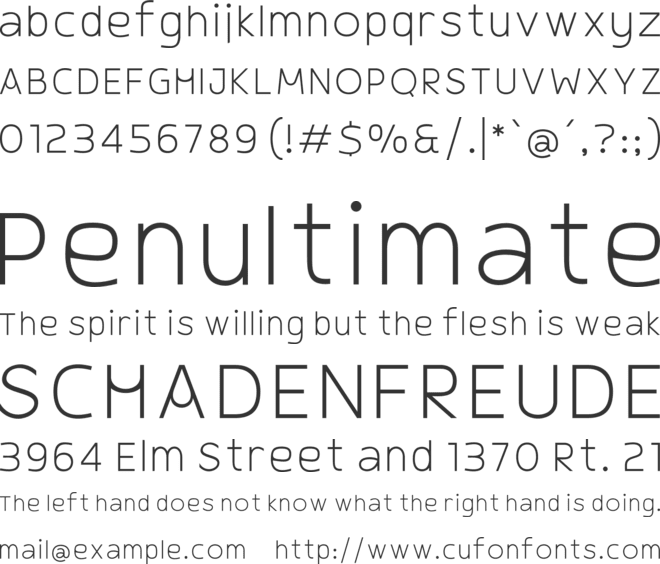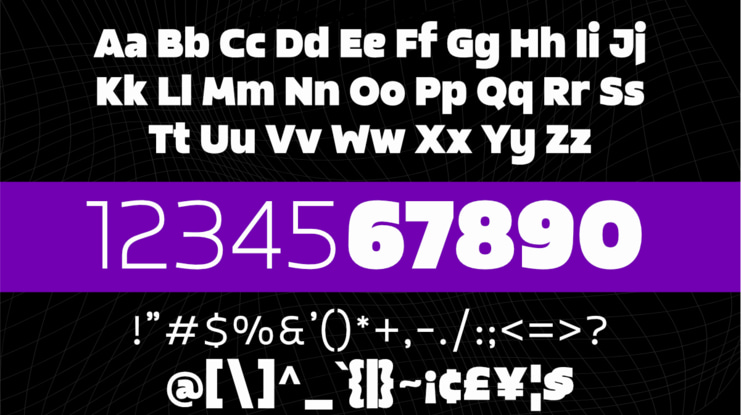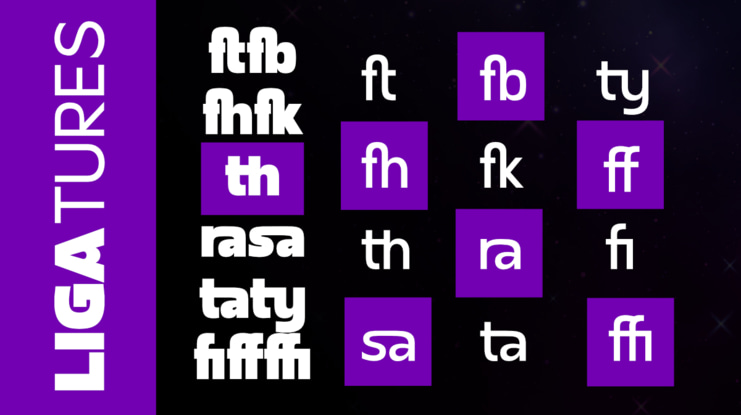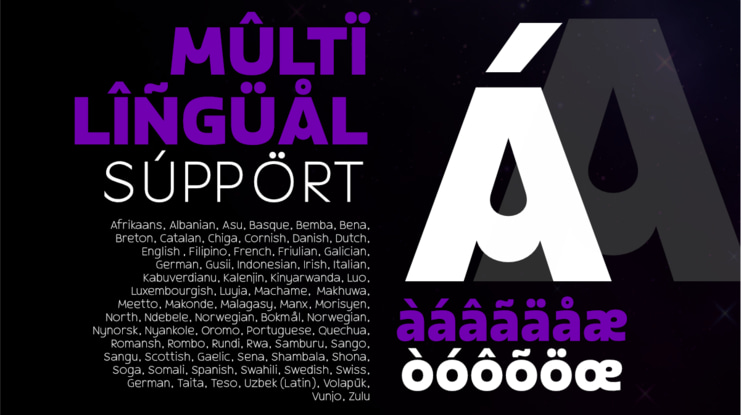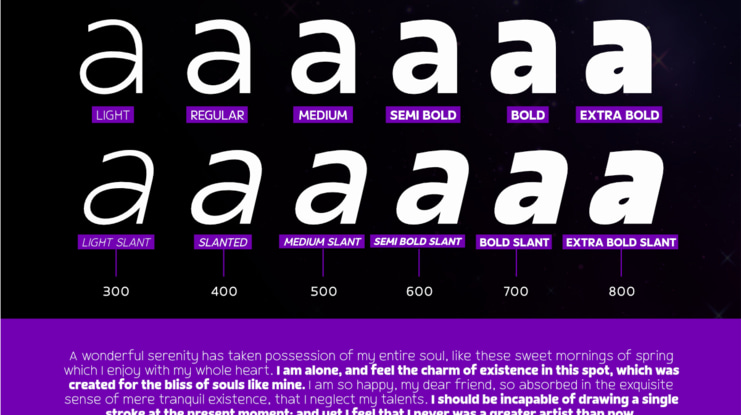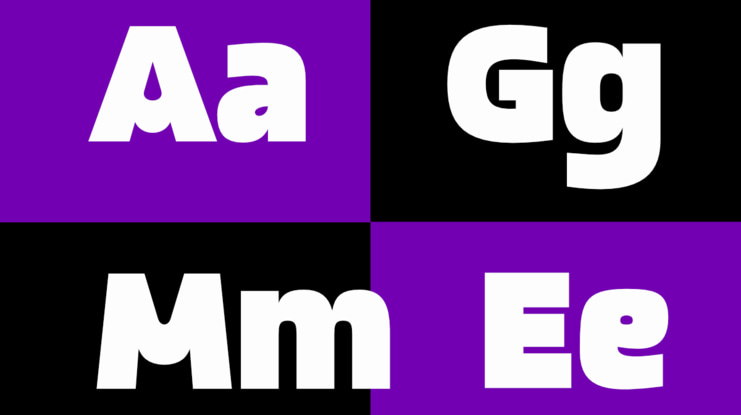
Afkari Studio
Gleh is a modern sans serif family typeface designed to deliver clean, versatile, and professional typography for a wide range of creative and corporate design needs. Built with balanced proportions and contemporary letterforms, Gleh offers excellent readability while maintaining a stylish modern appearance across all applications.
Gleh - Sans Serif Family Typeface
Gleh is a modern sans serif family typeface designed to deliver clean, versatile, and professional typography for a wide range of creative and corporate design needs. Built with balanced proportions and contemporary letterforms, Gleh offers excellent readability while maintaining a stylish modern appearance across all applications.